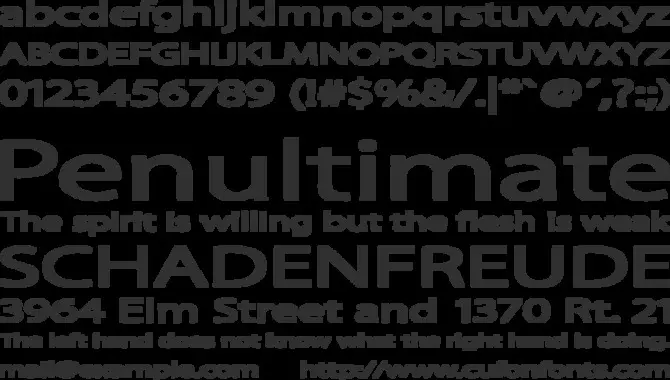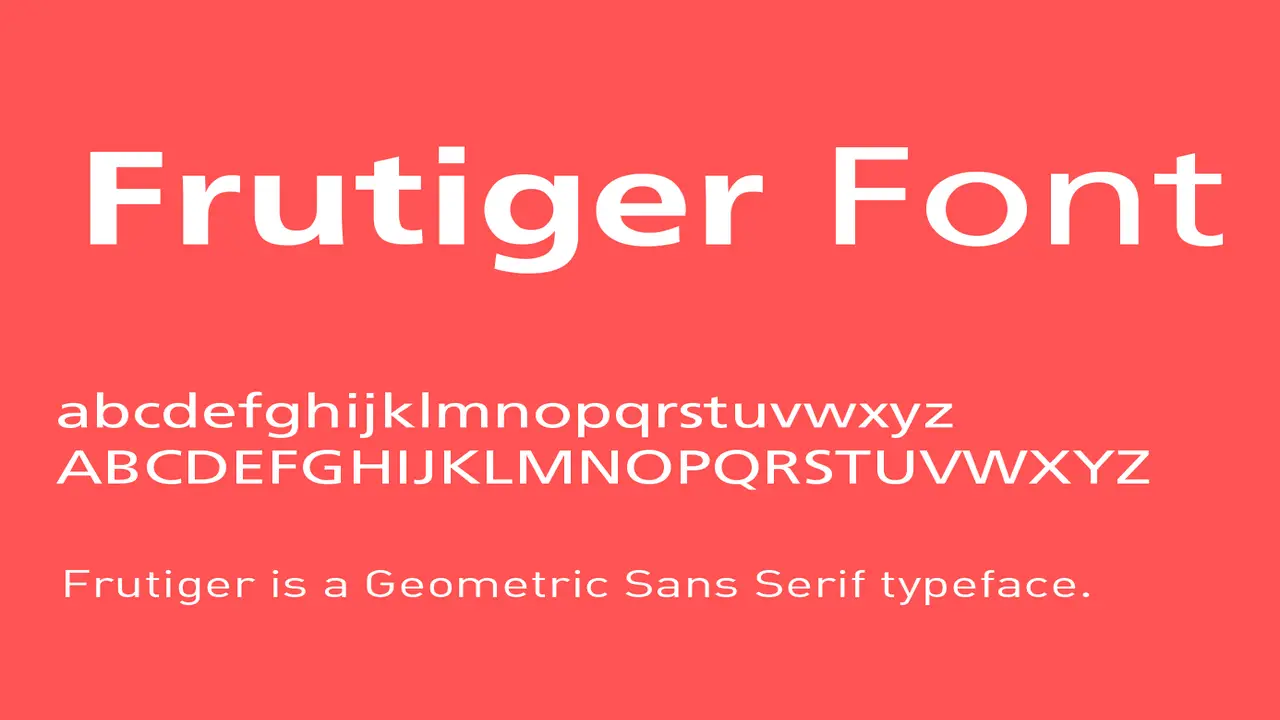
Designing eye-catching graphics that stand out in today’s crowded digital landscape is more important than ever. With so much content competing for users’ attention, it’s critical to create visually appealing designs that capture their interest and hold their attention.
Using the right font can be key to creating a successful design. Frutiger is a popular font used in many designs for years. Its clean and modern look makes it a great choice for a wide range of applications. Frutiger is a highly sought-after and popular font, but several fonts are similar to Frutiger and offer a similar vibe and aesthetic.
These fonts include Avenir, Helvetica Neue, Akzidenz Grotesk, Univers, and Trade Gothic. These fonts are all sans-serif, modern, and relatively timeless, making them a great option for anyone looking to create a sophisticated and professional look.
Furthermore, since they are so similar to Frutiger, they can be a great alternative if you don’t want to use the same font. Here, we’ll explore how to create eye-catching designs using fonts similar to Frutiger. Read on to get valuable insights into how to use fonts to create striking designs that capture the attention of your target audience.
The Allure Of The Frutiger Typeface
One of the most favored fonts is Frutiger, created by Adrian Frutiger in 1968. This typeface is mainly used in branding and publications worldwide. Its evolution began from Concorde (a sans-serif font), and it was later modified for signage at Roissy Airport.
The Frutiger typeface provides a clean, legible, and minimalistic style suitable for various design applications. With 19 unique styles, Frutiger is versatile and suitable for any field. It is the official typeface of many global organizations, Radio Shack, NHS, and Swiss passport.
Frutiger’s timeless and classic look is why it remains popular among many designers today. The Frutiger typeface is an excellent choice when adding a touch of sophistication and modernity to a design.
Popular Uses For The Frutiger Font
Frutiger font is one of the most popular fonts used for branding, logos, and publications. Its clear and versatile design has made it an ideal choice for designers worldwide.
Although there are different fonts similar to Frutiger, its modern and classic look has always been the favorite. It was originally designed as a new typeface for signage at Roissy Airport. Frutiger has also created other font designs unrelated to the Frutiger typeface.
If you are a designer aiming to create an eye-catching design, consider using Frutiger or its alternatives to create a timeless and visually appealing design. Behind every great design is a font that plays a key role in making it stand out. Frutiger is one such font that has always been a popular choice for designers.
However, it is not always practical for everyone to have access to this font. Using fonts similar to Frutiger can help you achieve similar vibes. These fonts are less known for their artistic flare but are still worth a try.
Unlocking The Potential Of Similar Fonts To Frutiger
If you want to create eye-catching designs using fonts similar to Frutiger, you’re in luck! There are many fonts inspired by Frutiger, including the Neue Frutiger, which consists of eight fonts with OpenType features. Adrian Frutiger and Akira Kobayashi, in an expanded version with a unique numbering scheme different from the original Frutiger font, have designed the Neue Frutiger.
The Frutiger font has won several awards and is very popular due to its unique design. However, if you want to try something new, you can use similar fonts inspired by Frutiger to create visually appealing designs. So why unlock the potential of similar fonts to Frutiger and experiment with different font combinations and designs to create something truly original?
Nanumgothic
If you want to create eye-catching designs using a font similar to Frutiger, consider using NanumGothic. This free font, designed by Jay Levenson, features an original Gothic style perfect for creating unique and stylish fonts.
With the detailed instructions Jay provides, you can make the most of this font and create stunning logos, brand identities, and other attractive designs. Whether you’re a graphic designer or just someone looking to enhance your work, NanumGothic is a great choice.
Its distinct style and bold look make it versatile for many design needs. So why unlock the potential of similar fonts to Frutiger and try NanumGothic?
Segoe Boot Semilight
Unlocking the potential of similar fonts to Frutiger can be a great way to create eye-catching designs. One such font is Segoe Boot Semilight, a versatile typeface that can be used for a variety of purposes. Its clean design and flexibility make it an excellent choice for creating designs similar to Frutiger.
Whether you are creating a logo, designing a website, or designing a product, Segoe Boot Semilight can help you achieve the desired look and feel.
Whether for print or digital use, Frutiger is a good choice for any situation that requires legibility.
5.What Are Google Fonts Similar To Frutiger?
Ans: If you are looking for similar Google Fonts to Frutiger, consider Lato and Open Sans. Frutiger is a sans-serif font that was originally for Charles de Gaulle airport signs in 1968. But has since transitioned to magazines and books.